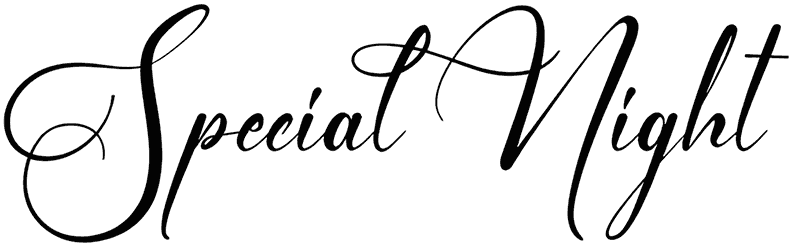
Special Night Font
Special Night offers a welcome respite from the monotony in a world dominated by digital letters. This calligraphy font is a reminder of the power of the written word and is a testament to the appeal of handicrafts in an increasingly digital world.
So whether you’re designing a wedding invitation, a logo for a luxury brand, or just looking to add some flair to your next project, this script font is well-crafted to deliver the effect you want without relying on numbers.